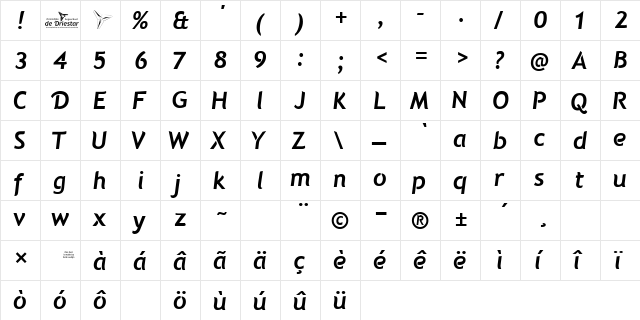
Natzilino SemiBold
Design Context for Natzilino Typeface
Natzilino offers clean, dependable letterforms without strong stylistic allegiance, making it a practical choice for designers who need flexibility. Its bold stroke weight gives it real presence on the page.